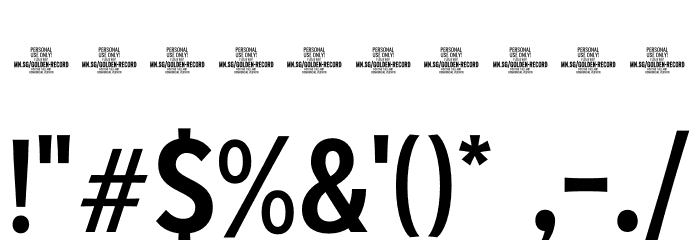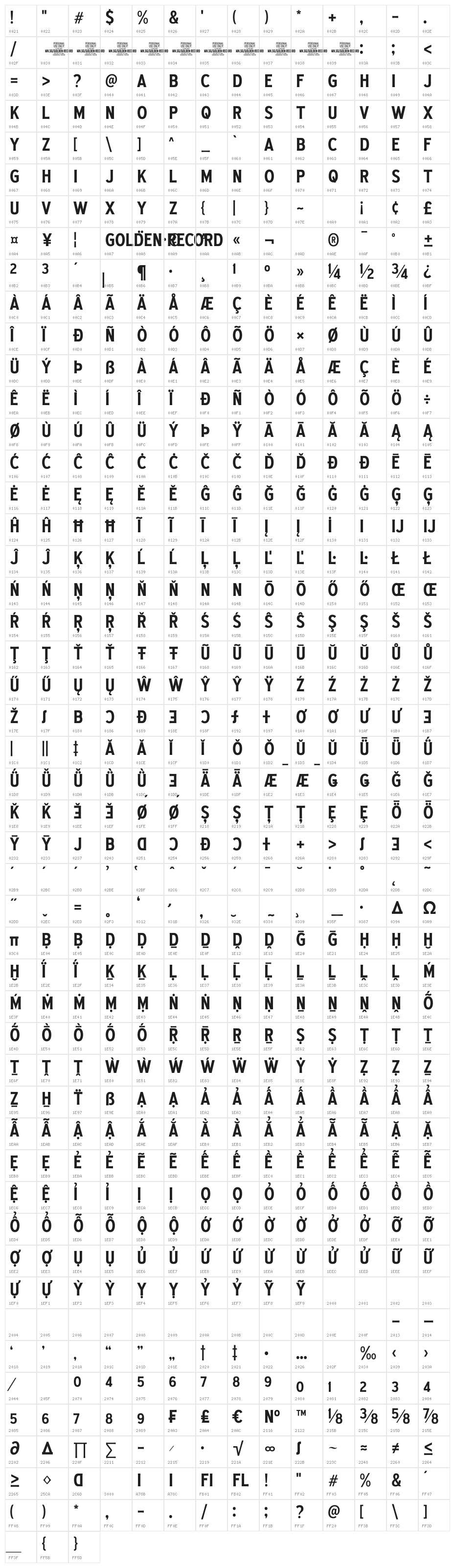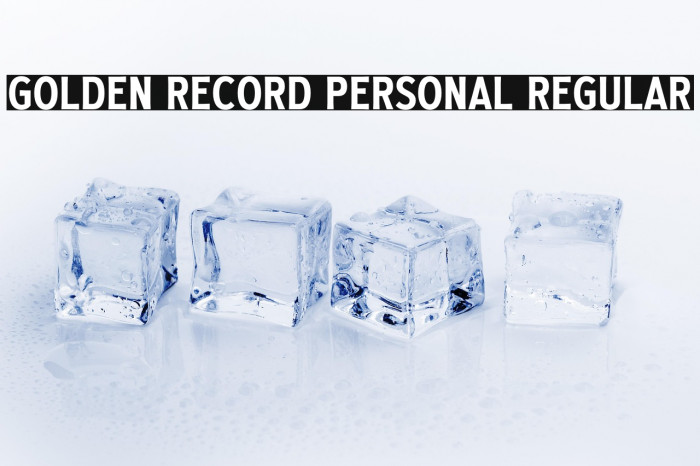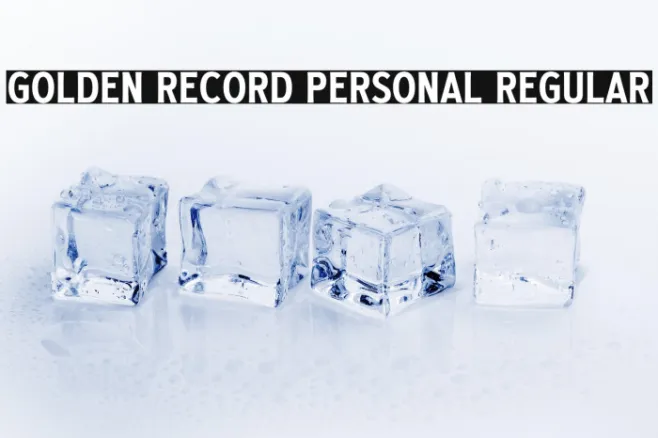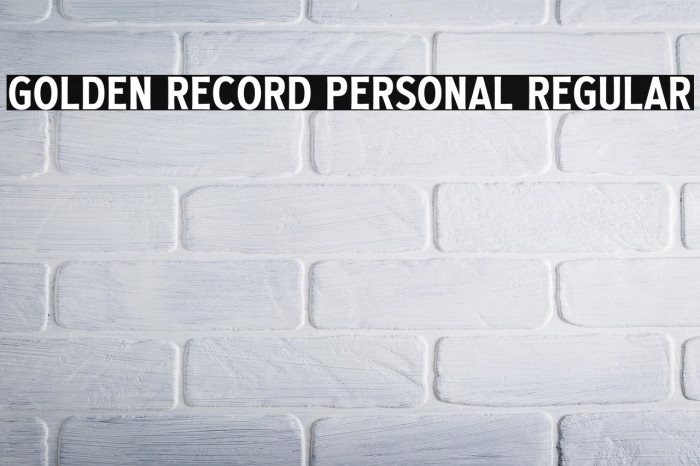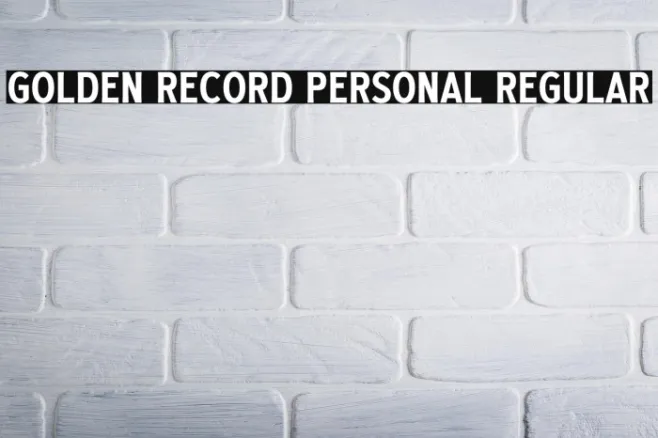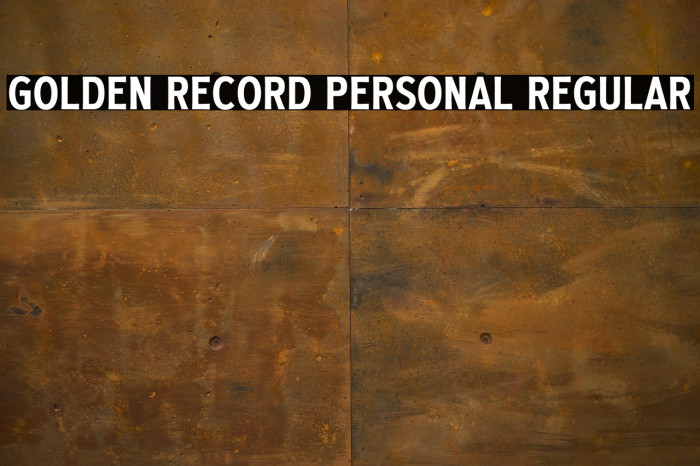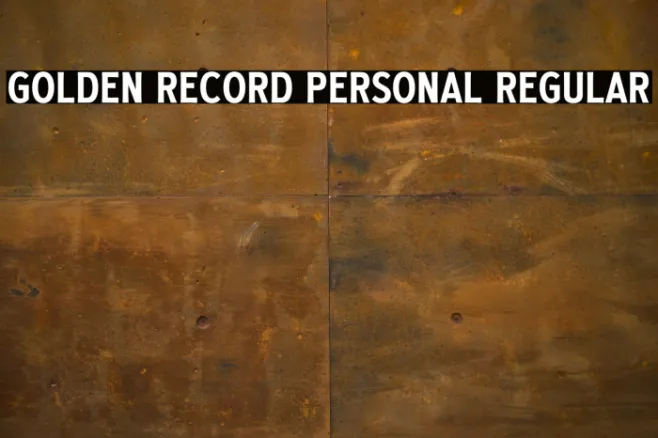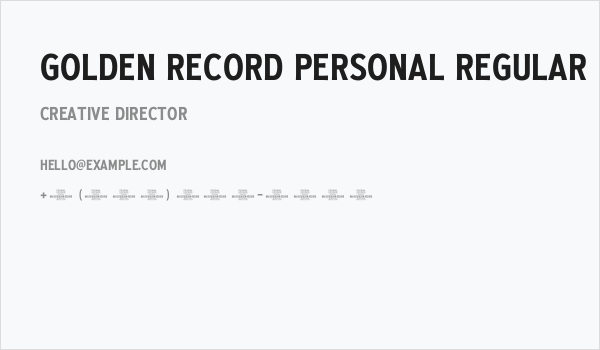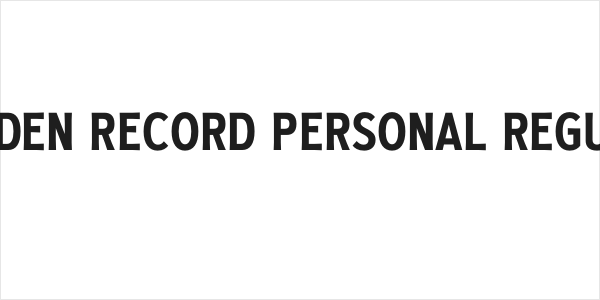
Golden Record PERSONAL Regular Font
Golden Record PERSONAL Regular Description
This font features bold, uppercase letters with a strong and commanding presence. The characters are uniformly designed with a modern aesthetic, showcasing clean lines and a geometric structure. The font is highly legible, making it suitable for various design applications. The spacing between characters is consistent, ensuring readability and a professional appearance. The numerals and special characters maintain the same bold style, providing a cohesive look across all elements. This font is ideal for projects that require a bold and impactful visual statement.